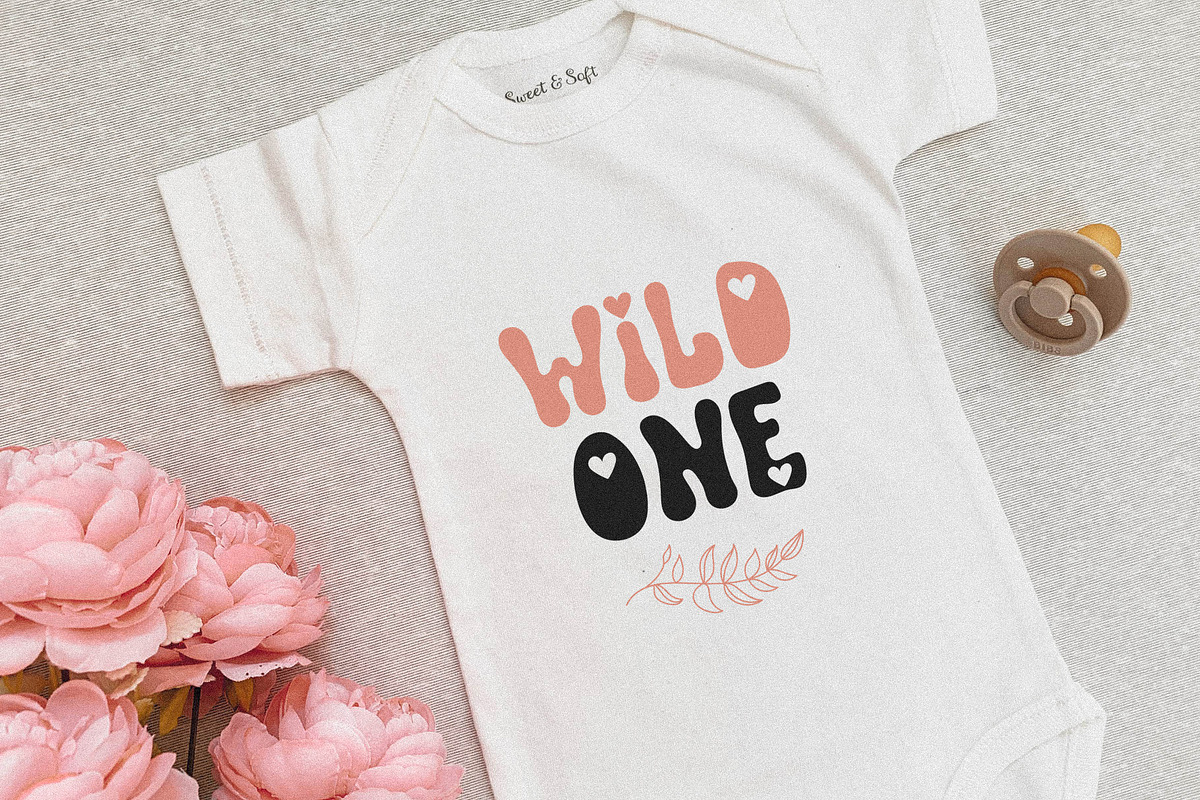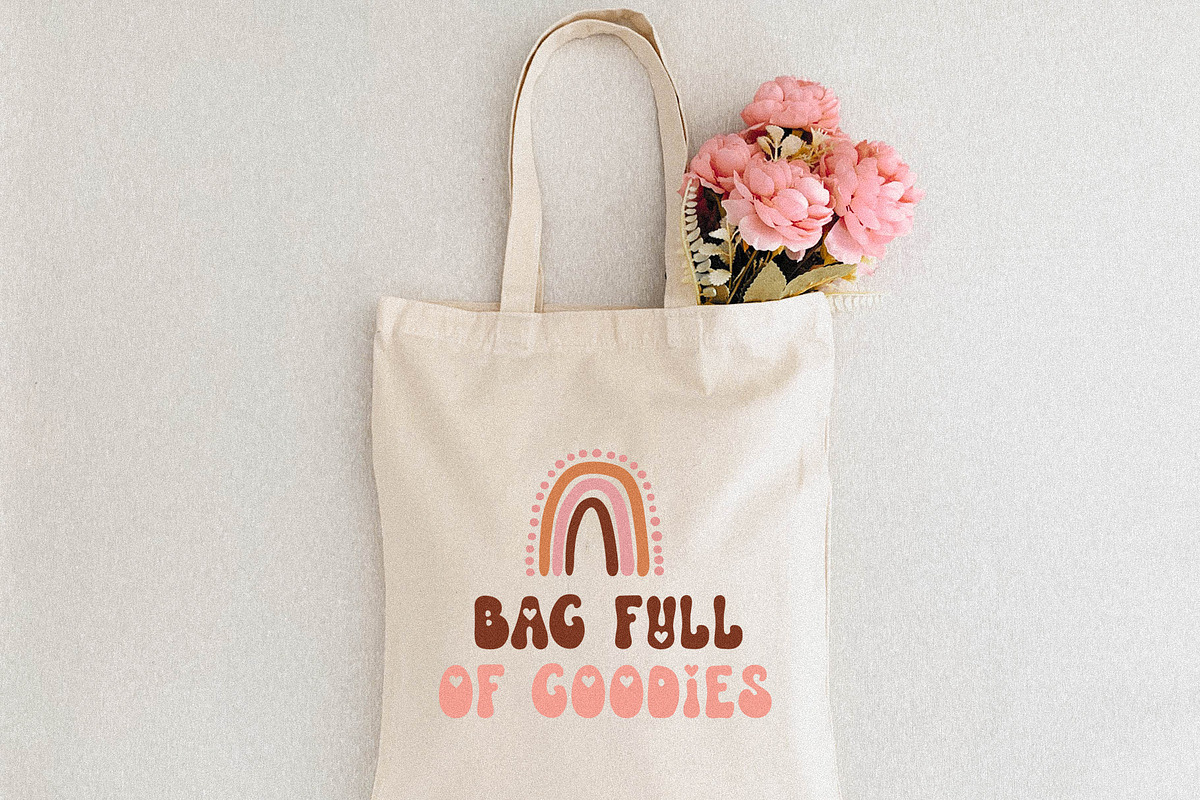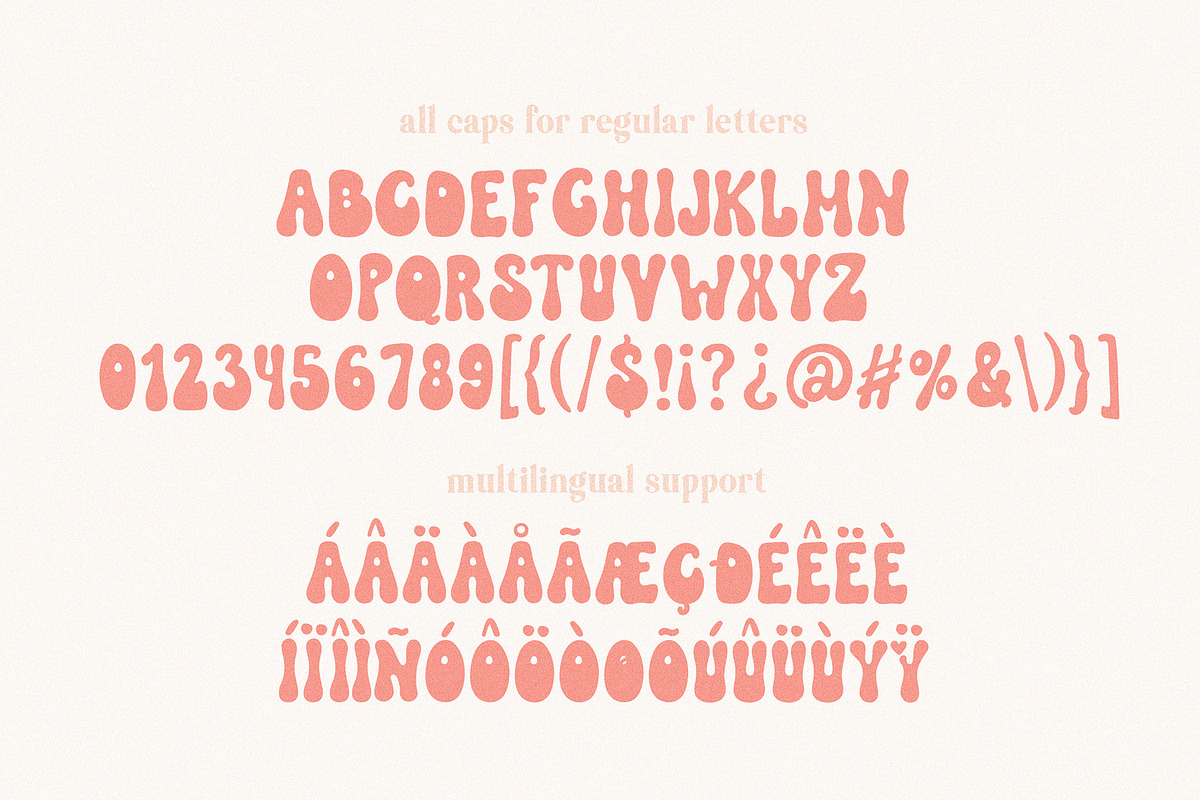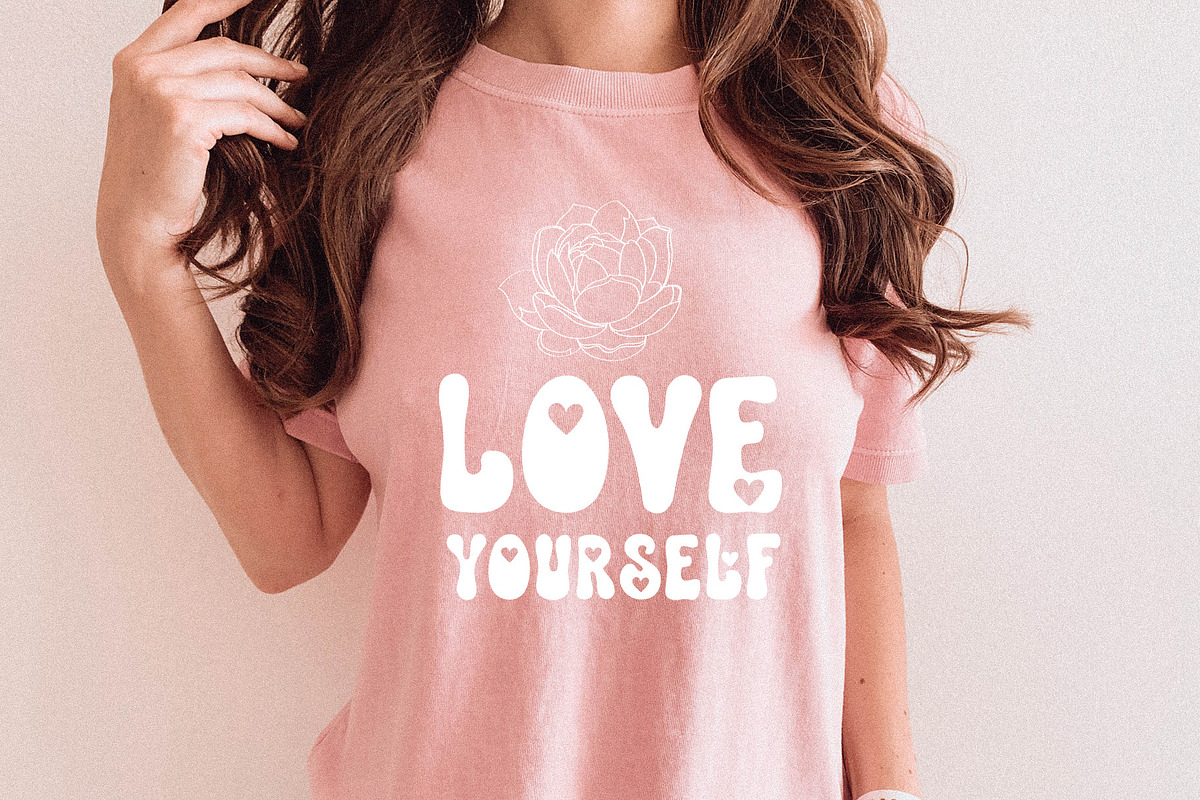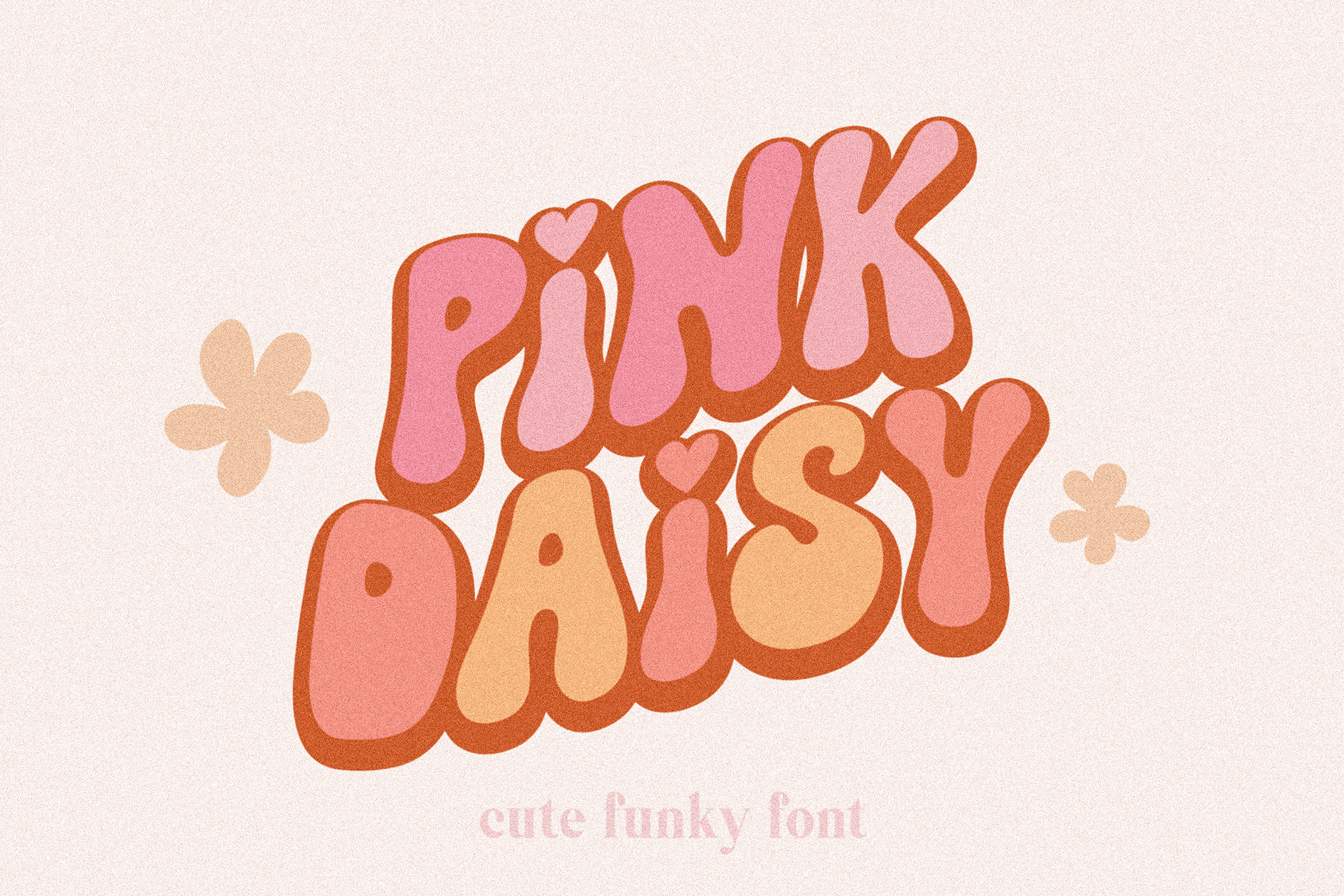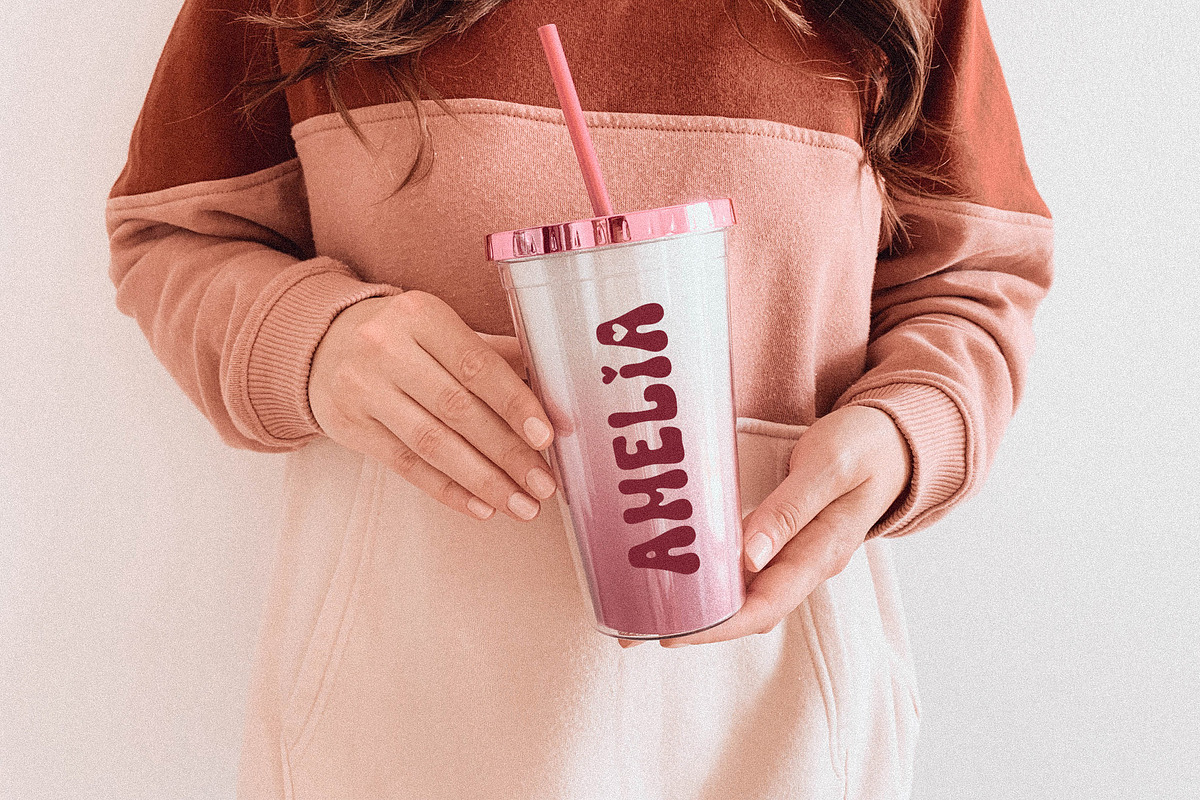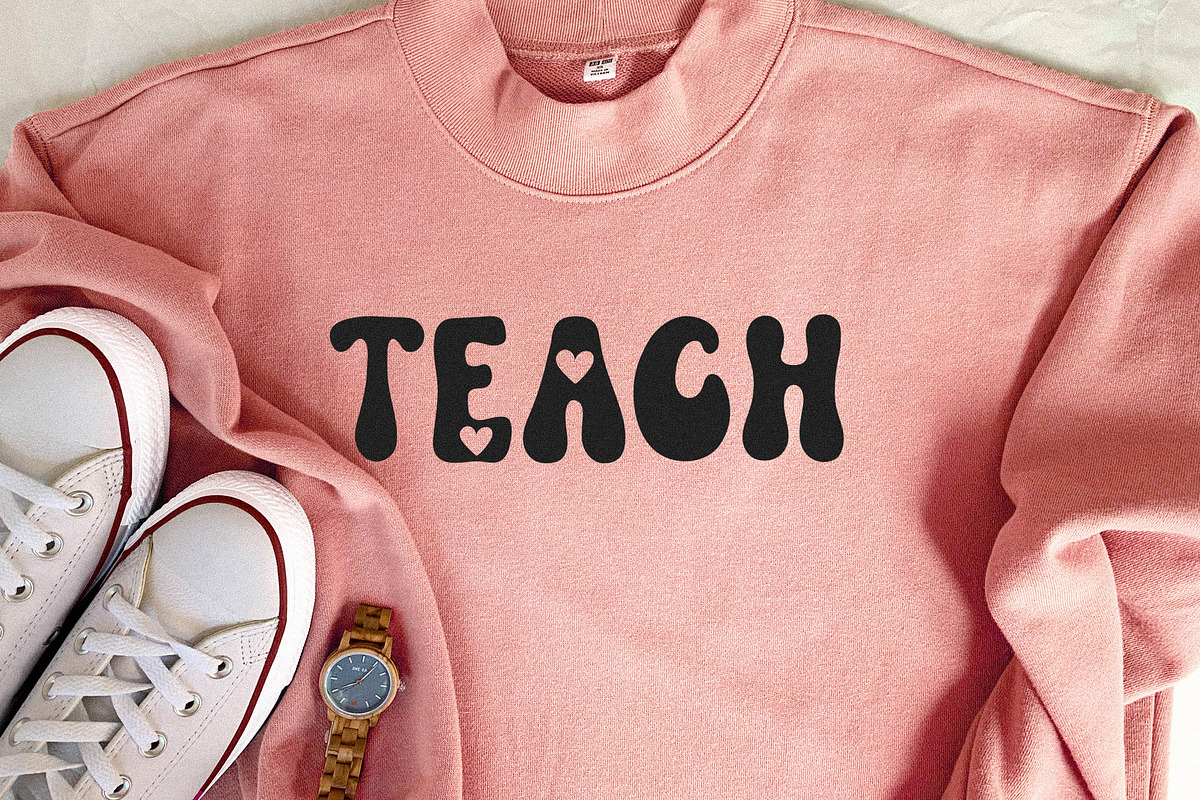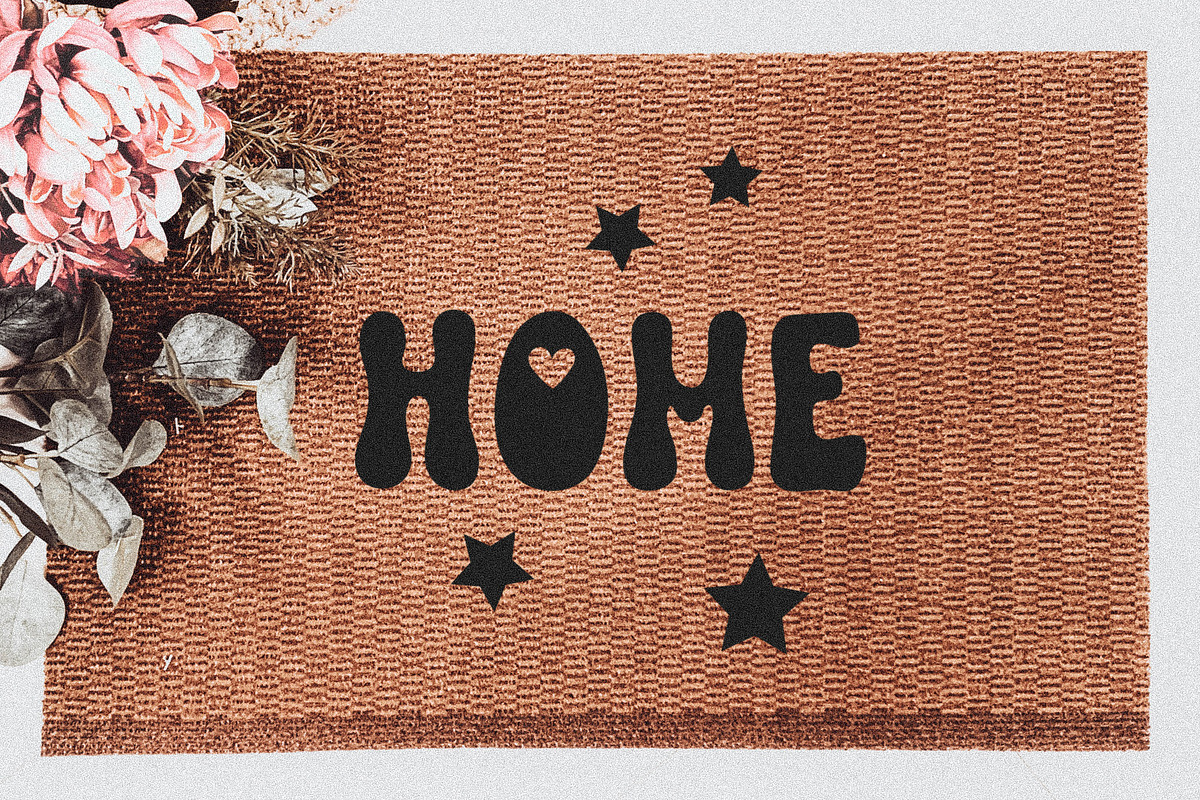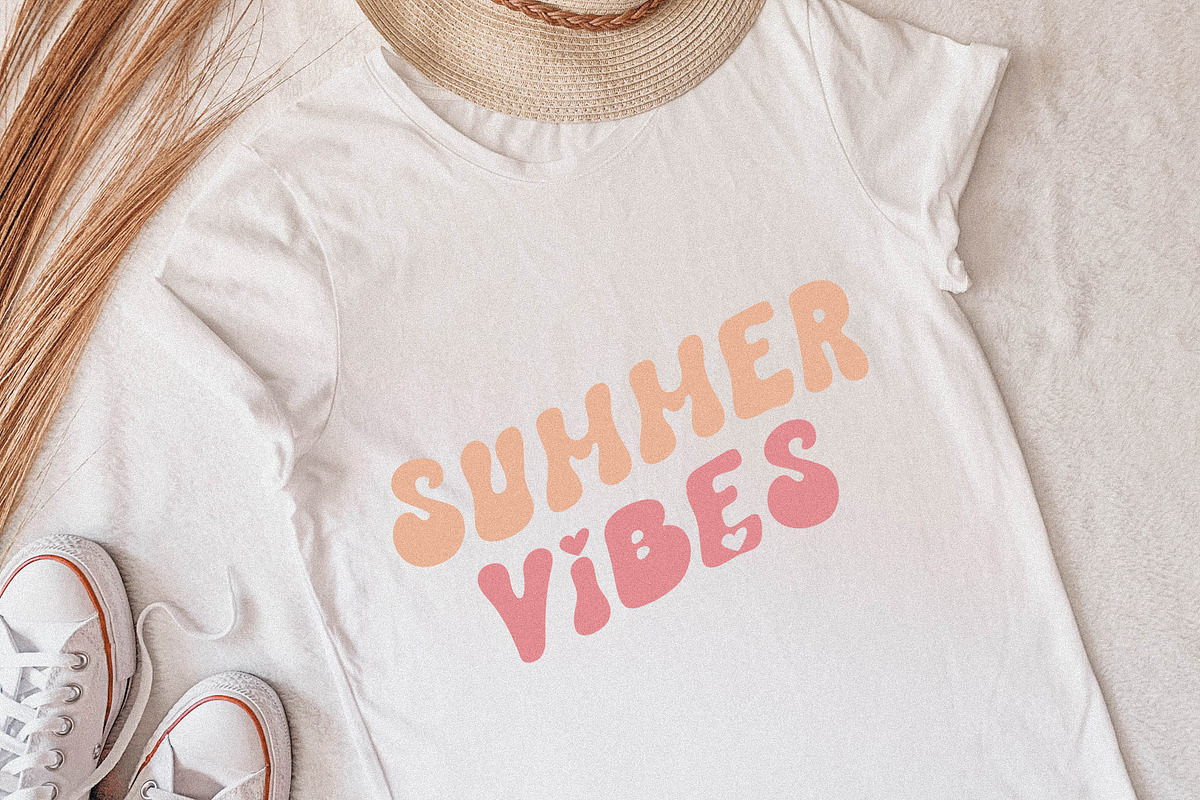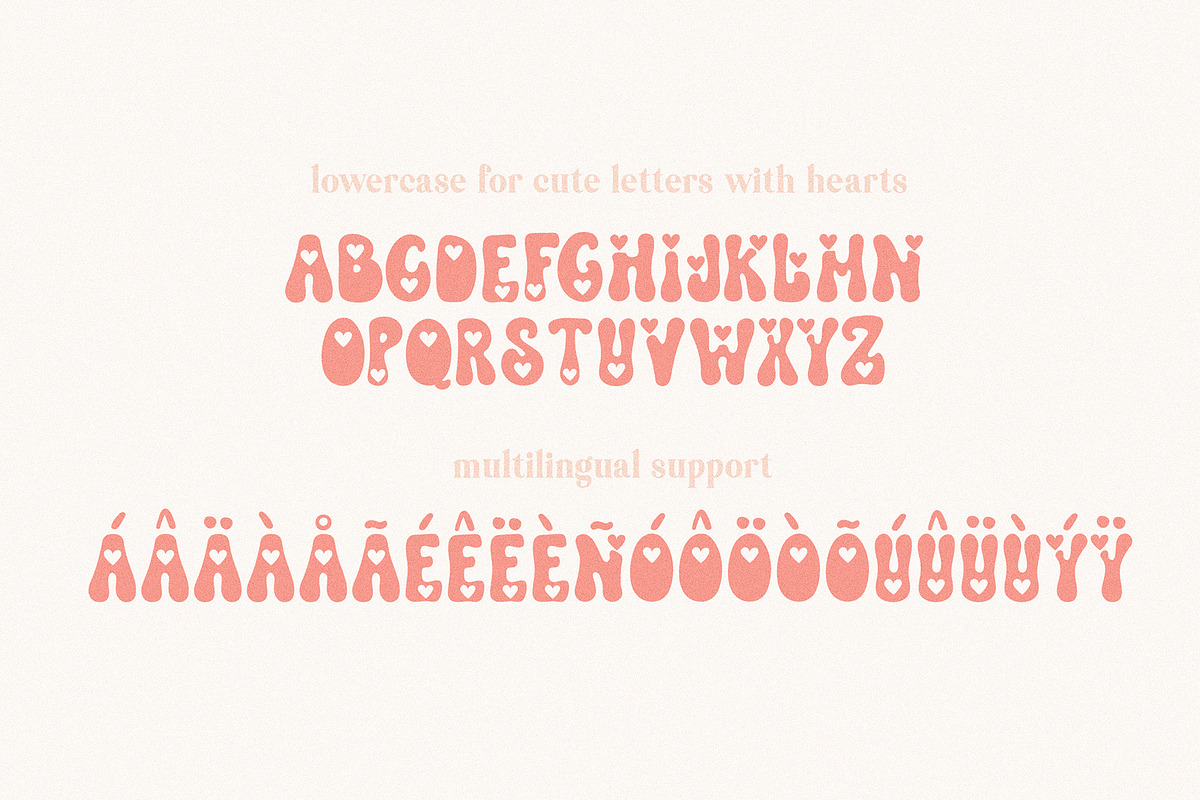
Groovy Font Pink Daisy
Pink Daisy a groovy handwritten font. Perfect to create stickers, quotes, t-shirt designs, mug designs, baby svg onesie projects, cricut projects, sublimation designs and svg files.
- Pink Daisy Font - type with all caps for regular letters
- Pink Daisy Font 2 style - type in lowercase for cute letters with hearts